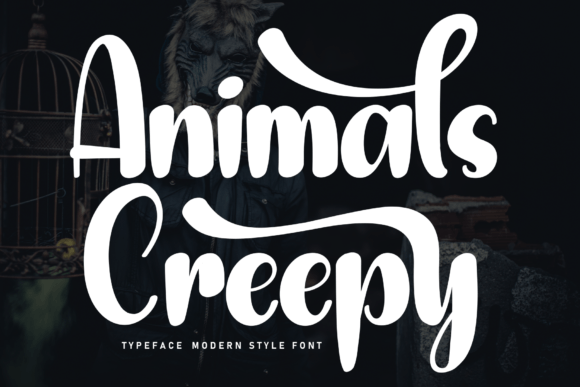
Behold the Animals Creepy Font, a whimsical and enchanting script font that captivates hearts with its playful charm and lively character. Like a mischievous sprite dancing across the page, this font casts a spell with its sweet and friendly handwritten flair.
Immerse yourself in the realm of creativity with Animals Creepy Font. Its playful nature and captivating curves make it an ideal choice for designing wedding invitations, greeting cards, and any project yearning for a touch of whimsy and delight. Let your imagination run wild as you craft unique and captivating designs that are sure to leave a lasting impression.
With Animals Creepy Font, you'll embark on a typographic adventure that's as unique as your own personality. Whether you're designing eye-catching logos, playful social media graphics, or stunning posters, this font will help you convey your message with flair and creativity.
Step into a world where fonts come alive, and words dance with joy. Animals Creepy Font is your ticket to creating designs that captivate, inspire, and leave an enduring mark on your audience. Embrace the magic of this enchanting font and let your creativity soar to new heights.
Discover the limitless possibilities that await you with Animals Creepy Font. Let your imagination take flight and create designs that are as unique and captivating as your dreams. Elevate your projects with this enchanting script font and witness the transformation of ordinary text into extraordinary works of art.